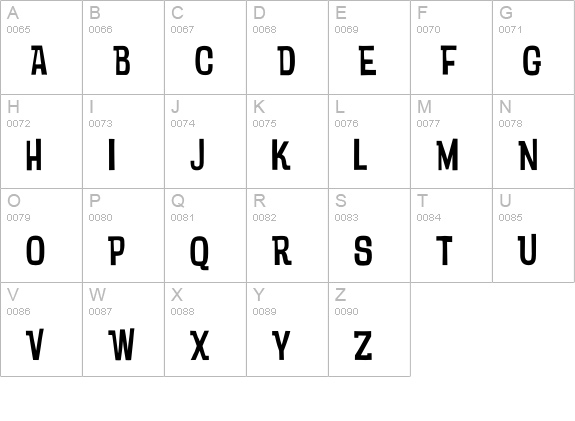
Psychatronic Font Details
Psychatronic font is a modern and futuristic typeface that exudes a sense of innovation and creativity. Its sleek lines and bold strokes make it ideal for a wide range of design projects, from tech-related branding to sci-fi movie posters. The geometric shapes and sharp angles give this font a cutting-edge look that is sure to catch the eye. What sets Psychatronic font apart is not only its striking visual appeal but also the fact that it is available for free download at FontsMarket.com. This means that designers and creatives can easily access this unique font to enhance their projects without having to worry about any additional costs. With its versatility and modern aesthetic, Psychatronic font is a must-have for anyone looking to add a touch of futuristic flair to their designs.